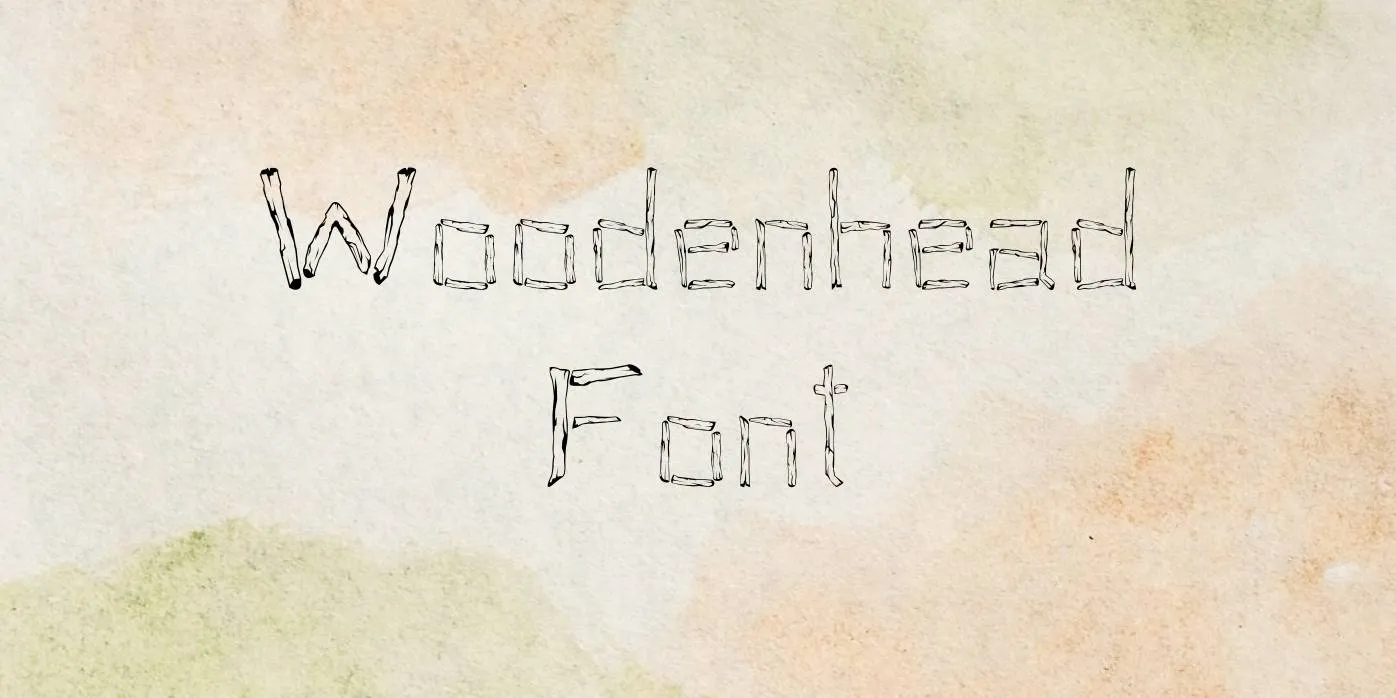
Woodenhead Font
Woodenhead Font is a stylish fancy font that is perfect for use in printing projects. This font has a unique design that makes it stand out from other fancy fonts. This Font is also available in two different styles, Regular and Bold. This Font was created by designer Andrew Herndon.
Herndon is a freelance graphic designer and illustrator based in Brooklyn, New York. Herndon has worked with a variety of clients, including The New York Times, Nike, and MTV. The Font design is inspired by the work of early 20th-century American Type Founders designer Morris Fuller Benton. Benton was responsible for creating many iconic typefaces, including franklin gothic and News Gothic.
The Font design is a modern interpretation of Benton’s work.